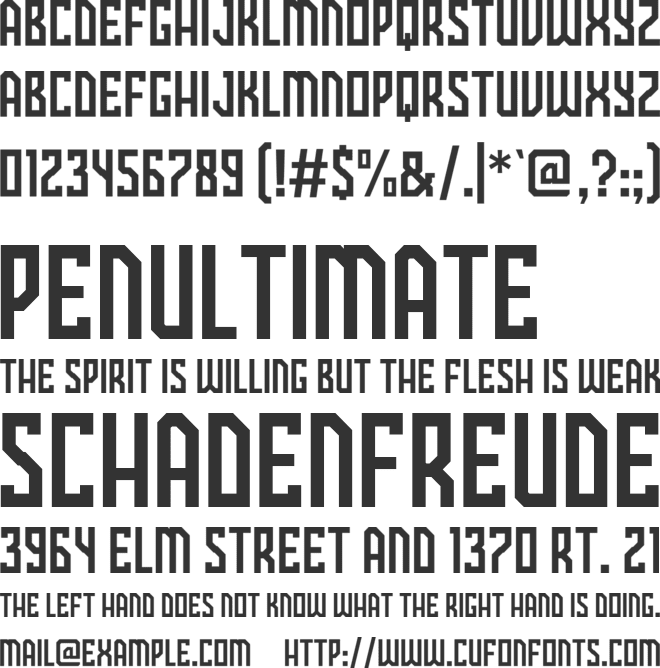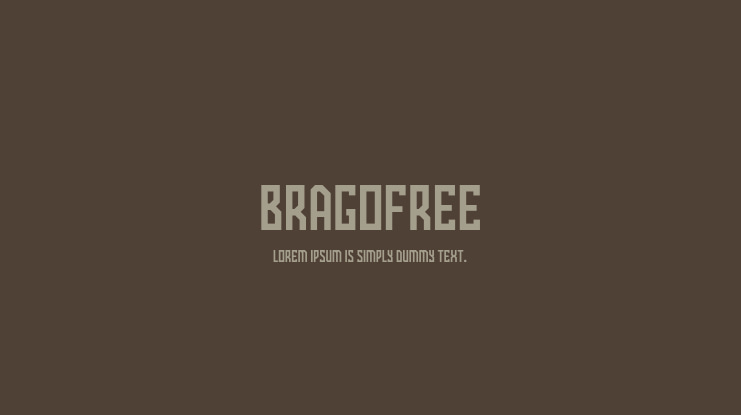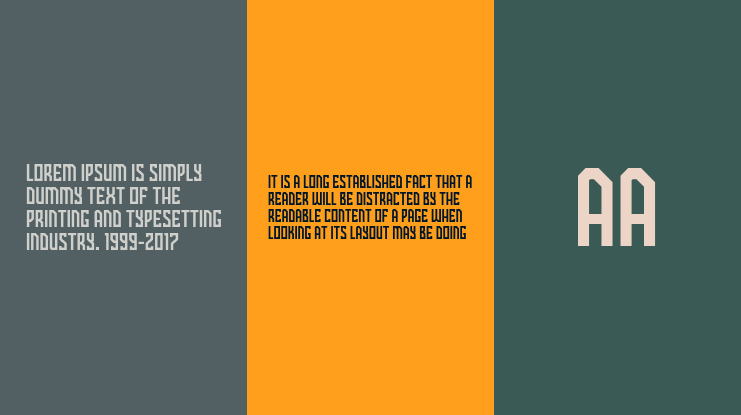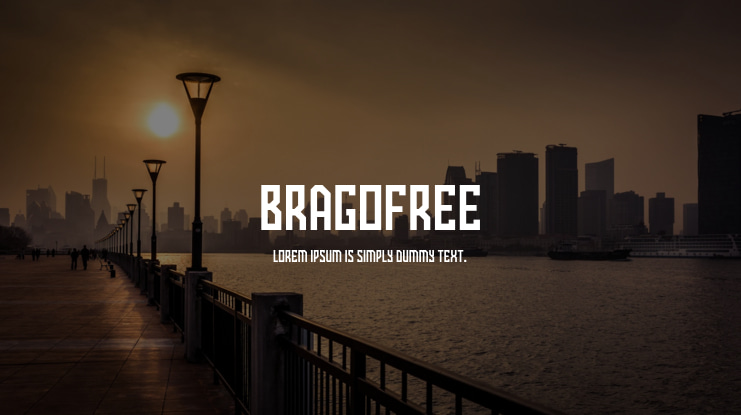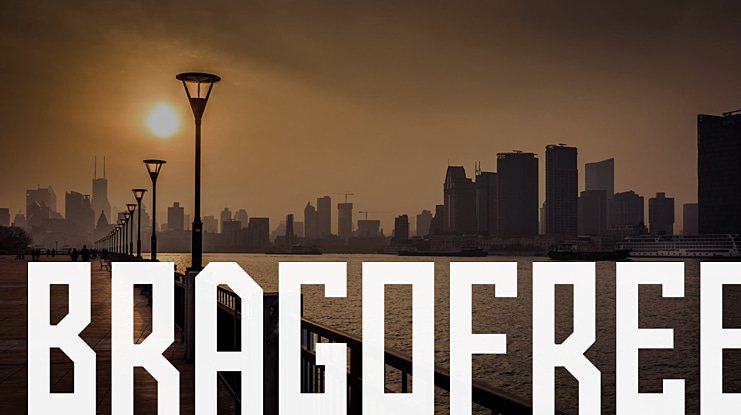
BragoFree Font
Brago is a display font that made for football or other sports uniform/ jersey number.
Even though it is made for sports, Brago is also great for other purposes such as esports logo, headline, etc.